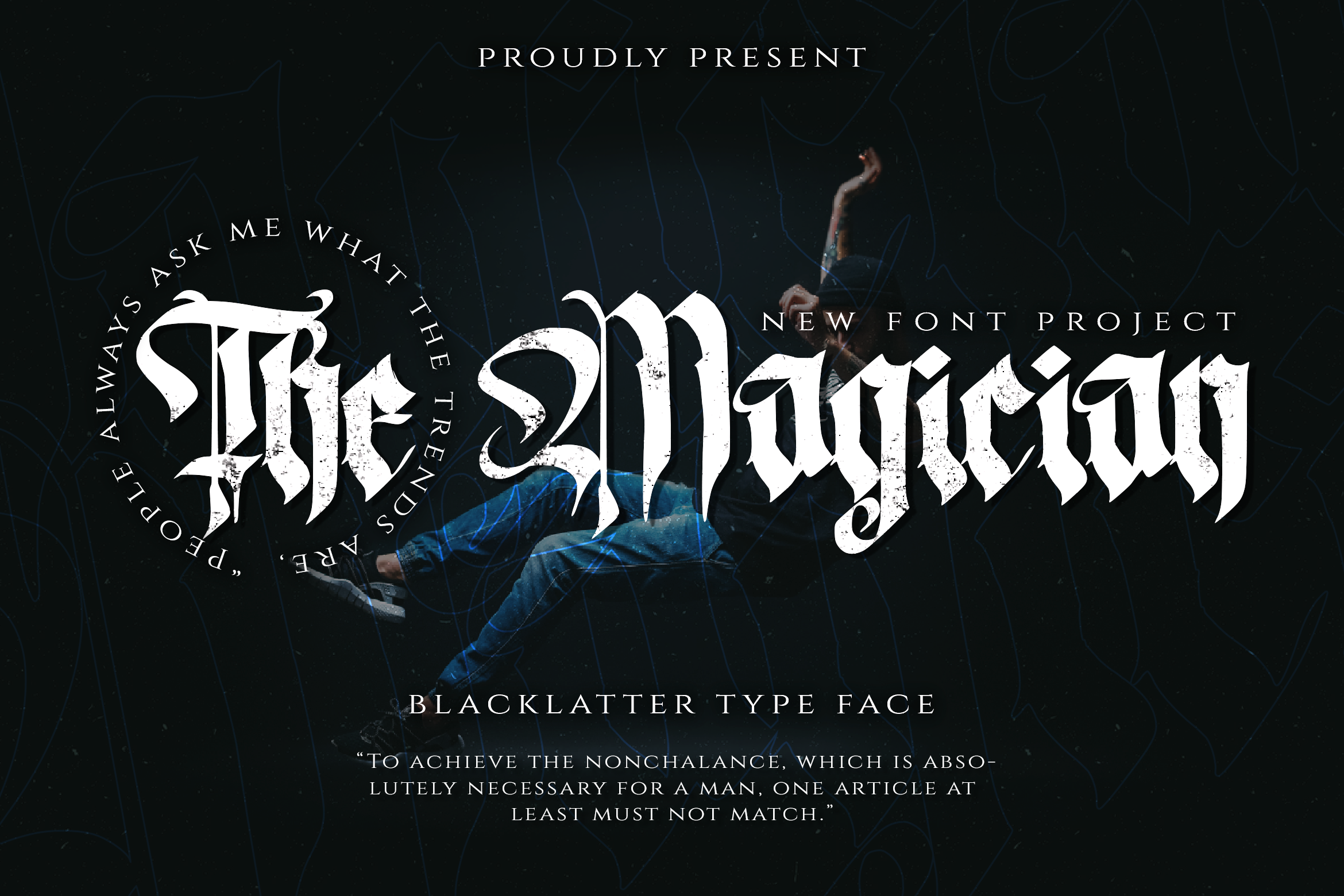
The Magician - Blackletter Typeface
The Magician is an elegant and classic blackletter font that will impress with its stylish features. Use it for product packaging, branding, or other projects that need bold and daring typography!